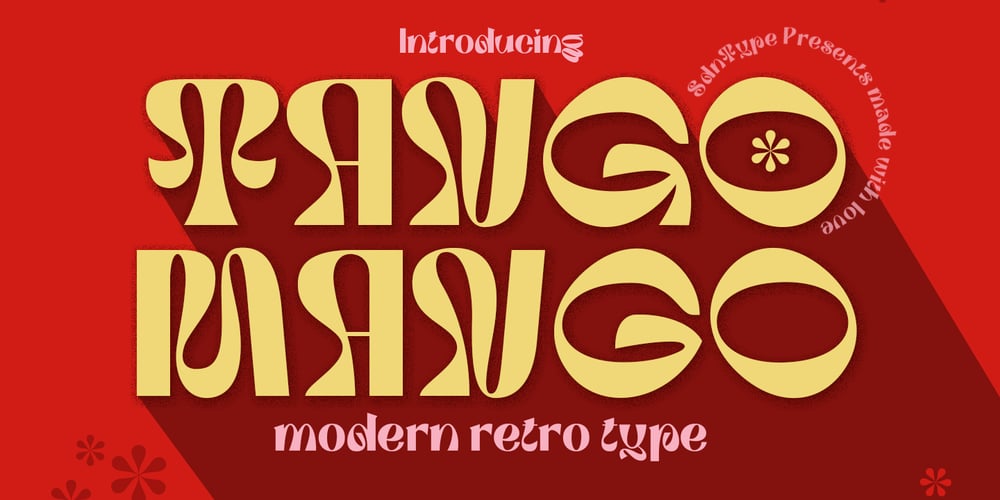
Tango Mango Font Family was designed by Pande Made and published by TypeClassHeroes. Tango Mango contains 1 styles and family package options. Introducing Tango Mango Modern Retro Font, access your OpenType features to access the large selection of alternate letters and ligatures. Use this font for any branding, product packaging, invitation, quotes, t-shirt, label, poster, logo etc.Feature Uppercase & Lowercase Number & Symbol International Glyphs Multilingual support Alternative Ligature Feel free to drop us a message any timeHope you enjoy it.